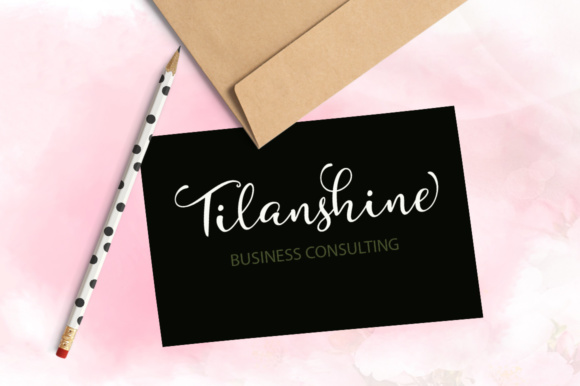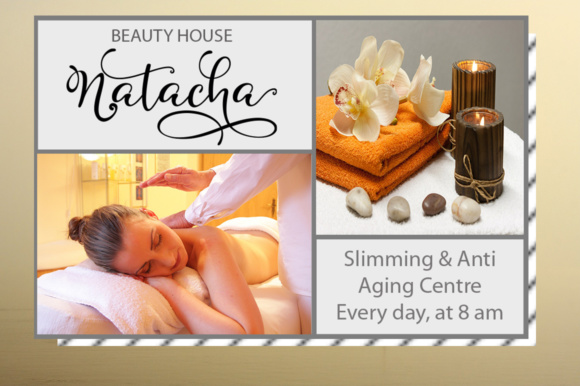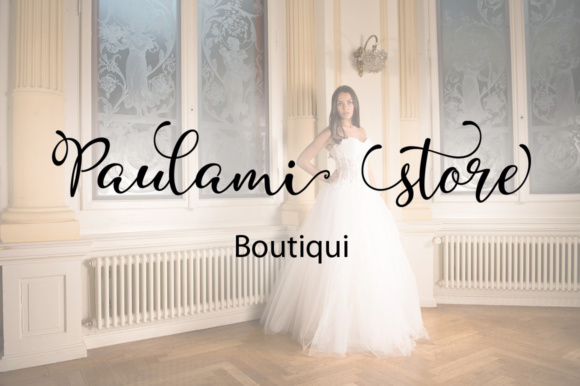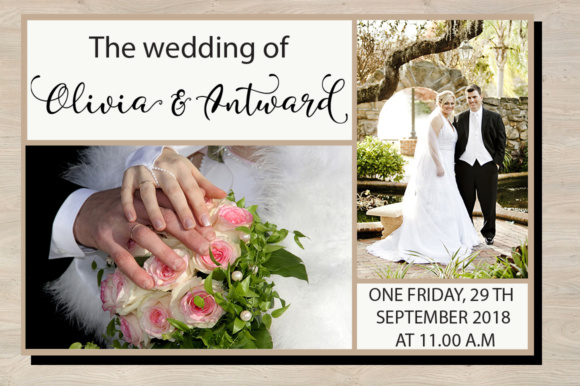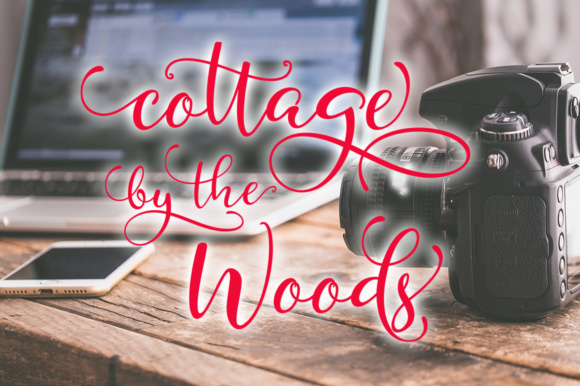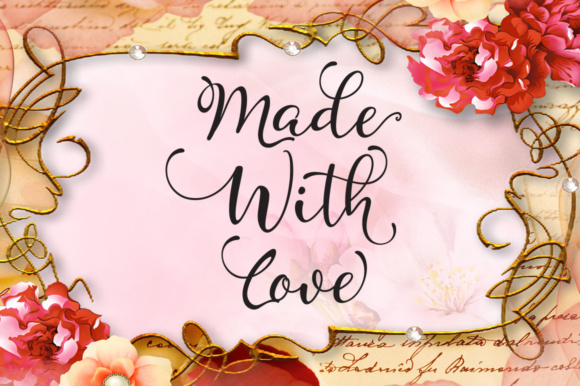
Introducing Asnitta Font: A Lovely, Playful Script Font for Creative Projects
Are you a designer or crafter looking for a font that can add a touch of playfulness and elegance to your projects? Look no further than Asnitta Font, a stunning script font that is packed with beautiful alternates and swashes. In this article, we’ll take a closer look at Asnitta Font, its features, and how you can use it to elevate your designs.
What is Asnitta Font?
Asnitta Font is a lovely, playful script font that is perfect for a wide range of creative projects. Its elegant and flowing lines make it ideal for use in designs where you want to add a touch of sophistication and whimsy. Whether you’re working on a logo, branding project, or craft project, Asnitta Font is sure to impress.
Key Features of Asnitta Font
So, what makes Asnitta Font so special? Here are just a few of its key features:
• Stunning Alternates: Asnitta Font comes with a range of beautiful alternates that allow you to customize your text and add a touch of uniqueness to your designs.
• Swashes: The font also includes a range of swashes that can be used to add a decorative touch to your text.
• Playful and Elegant: Asnitta Font has a playful and elegant feel that makes it perfect for use in a wide range of creative projects.
How to Use Asnitta Font in Your Projects
Asnitta Font is a versatile font that can be used in a wide range of creative projects. Here are just a few ideas to get you started:
• Logo Design: Use Asnitta Font to create a custom logo for your business or brand.
• Branding Projects: The font is perfect for use in branding projects, such as business cards, letterheads, and packaging.
• Craft Projects: Asnitta Font is also great for use in craft projects, such as scrapbooking, card making, and DIY gifts.
• Digital Designs: The font can be used in digital designs, such as social media graphics, blog posts, and website headers.
Tips for Using Asnitta Font Effectively
Here are a few tips for using Asnitta Font effectively in your designs:
• Experiment with Alternates: Don’t be afraid to experiment with the different alternates and swashes that come with Asnitta Font.
• Use it Sparingly: While Asnitta Font is a beautiful font, it can be overwhelming if used too much. Use it sparingly to add a touch of elegance and whimsy to your designs.
• Pair it with Other Fonts: Asnitta Font pairs well with a range of other fonts, so don’t be afraid to experiment with different combinations.
In conclusion, Asnitta Font is a lovely, playful script font that is perfect for designers and crafters looking to add a touch of elegance and whimsy to their projects. With its stunning alternates and swashes, Asnitta Font is sure to impress. Whether you’re working on a logo, branding project, or craft project, Asnitta Font is a great choice.
Overall, Asnitta Font is a beautiful and versatile font that is sure to elevate your designs. With its stunning alternates and swashes, it’s the perfect choice for designers and crafters looking to add a touch of elegance and whimsy to their projects.